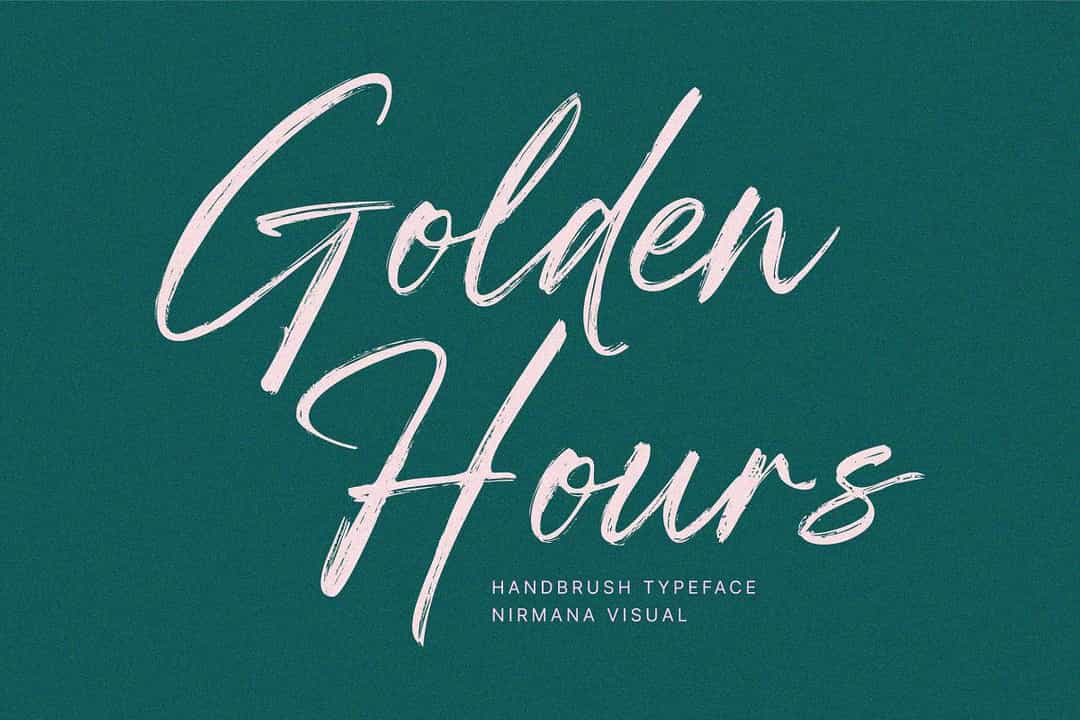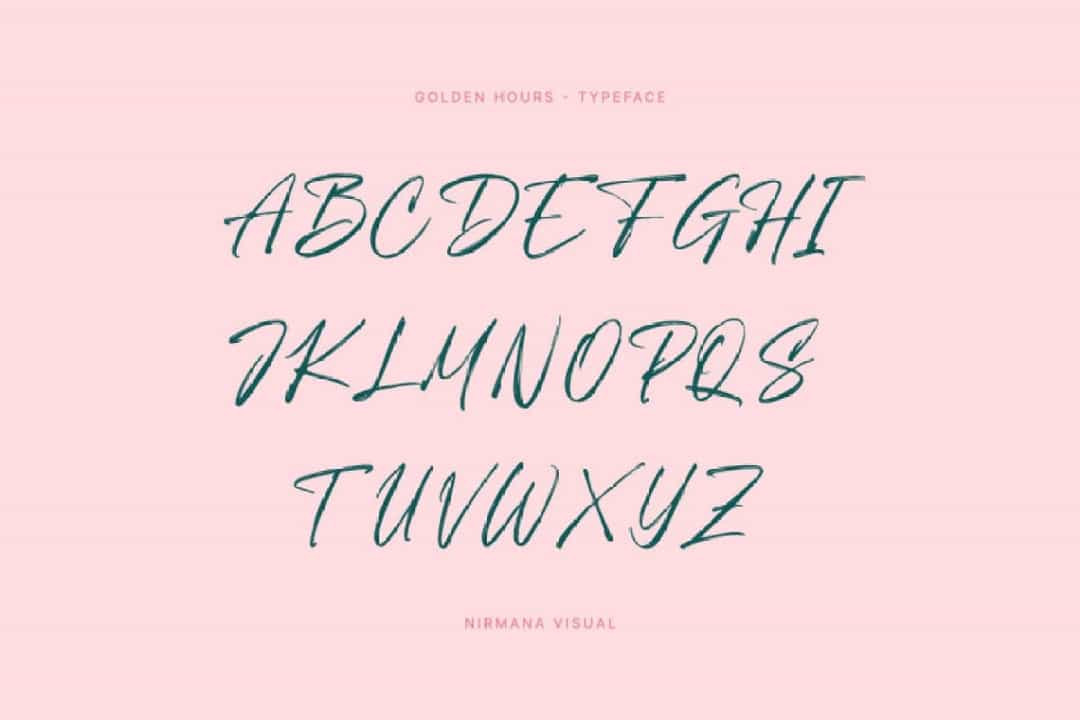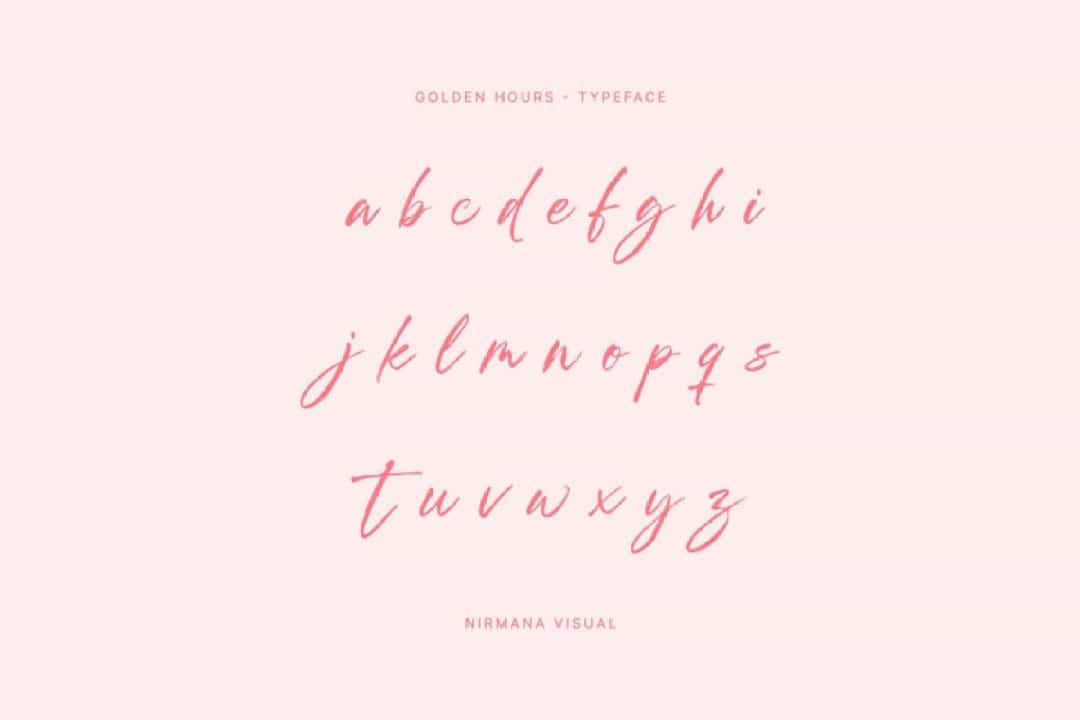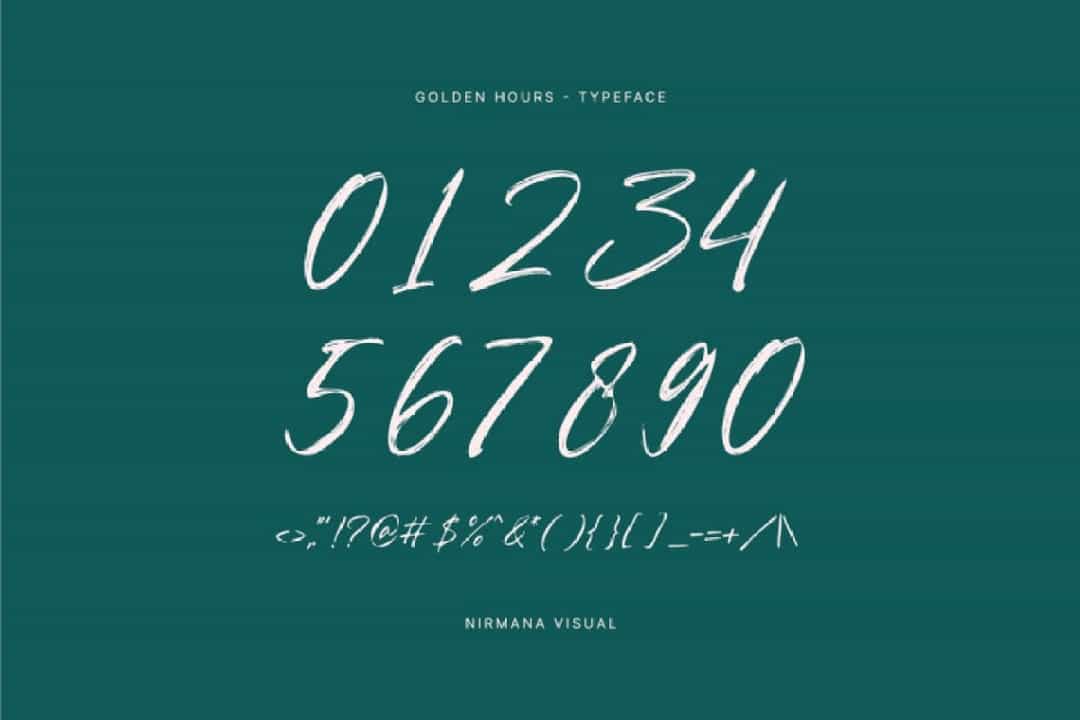
Golden Hours by Nirmana Visual is an exquisite handwritten script font designed and produced to be both extremely detailed and beautiful in shape, making it suitable for invitations, posters branding as well as social media posts as well as headlines, body text on magazines, logos among many other applications.